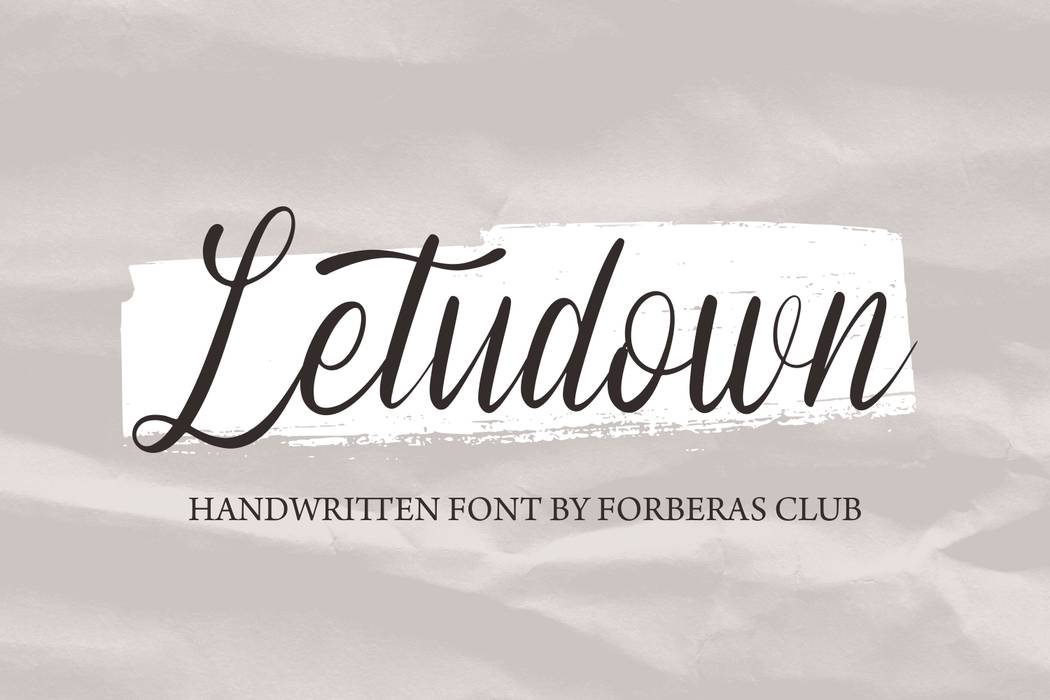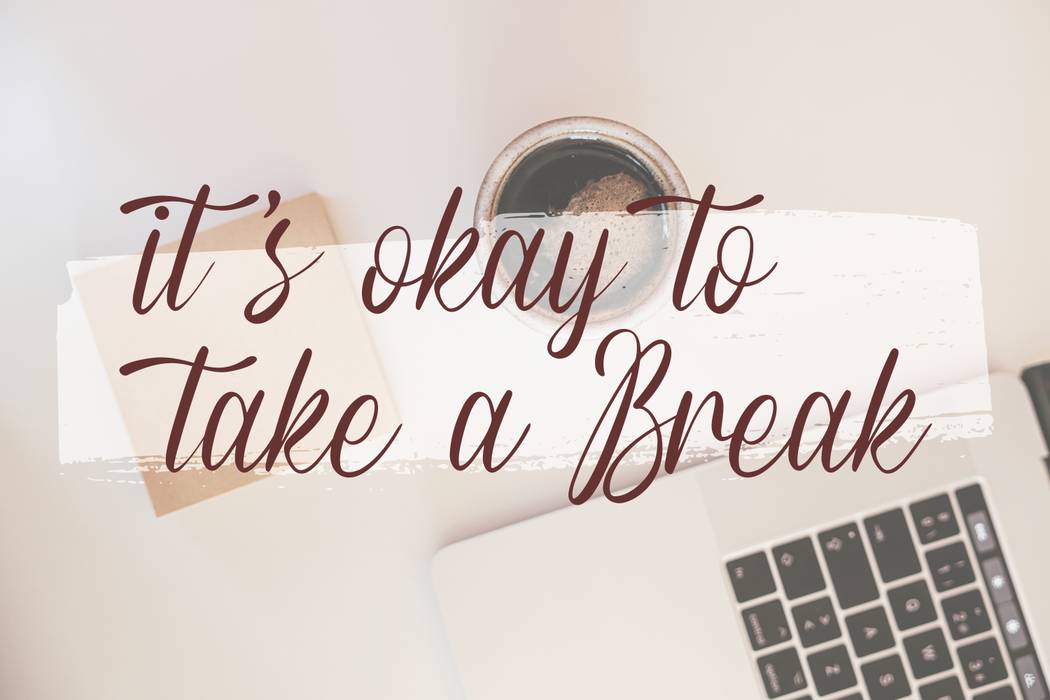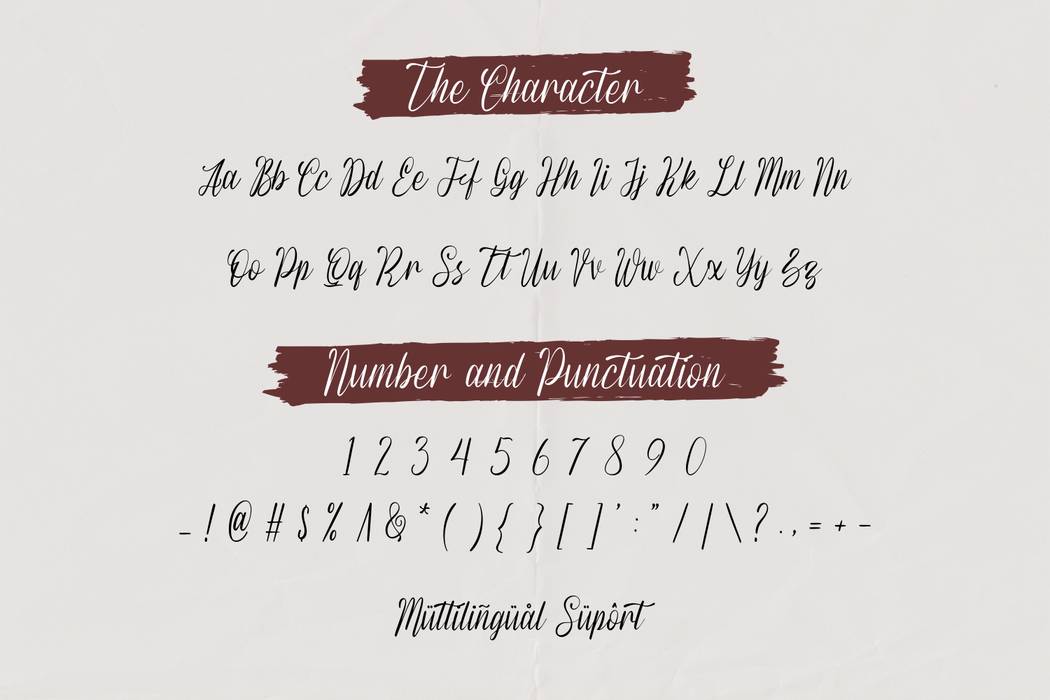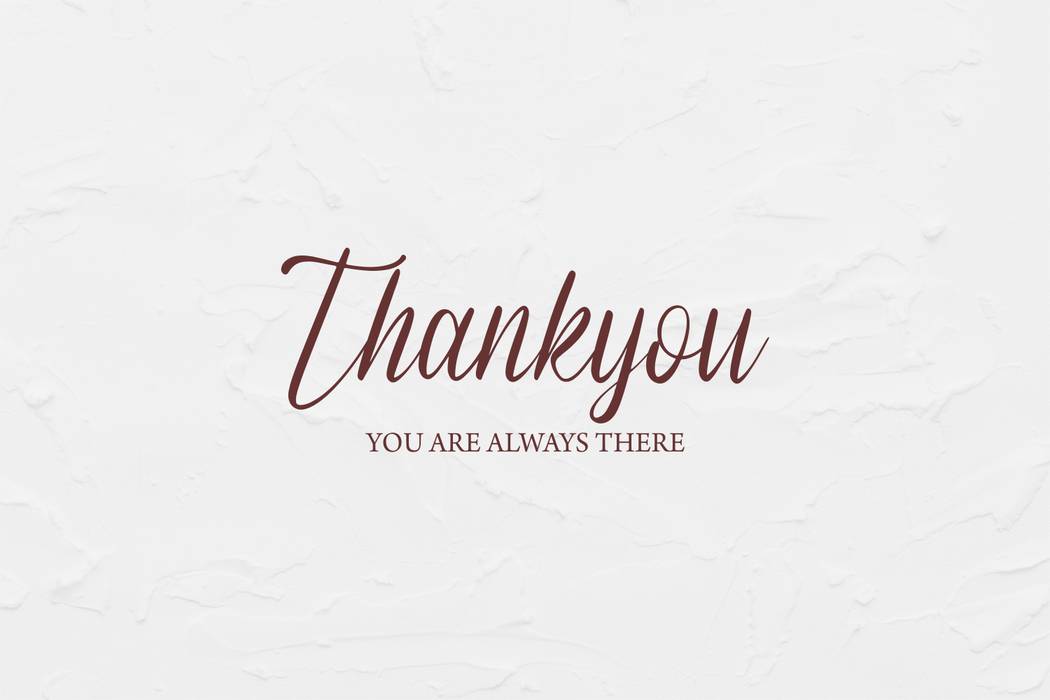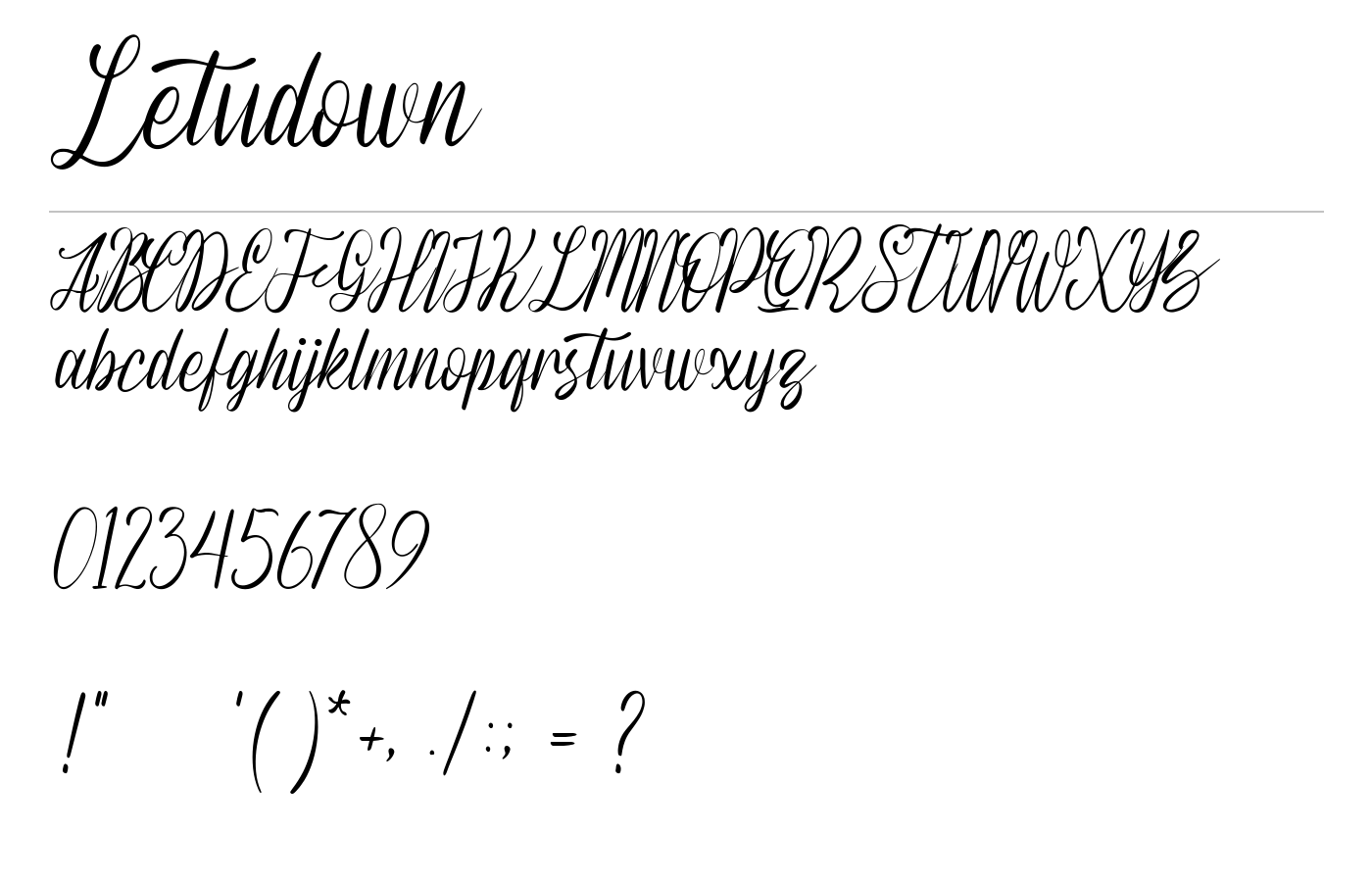
Letudown is a slender, elegant script font characterized by its flowing, calligraphic strokes and high contrast between thick and thin lines. Its sophisticated, cursive style with elongated letterforms and delicate curves makes it perfect for luxury branding, invitations, and fashion-related designs that require a refined, graceful touch. This font shines best in larger sizes where its intricate details can be fully appreciated, lending a sense of elegance and charm to any creative project.
Letudown Font
About Letudown Font
| Font family | Letudown Font |
| Release date | 2022-01-21 |
| Designer | Forberas |